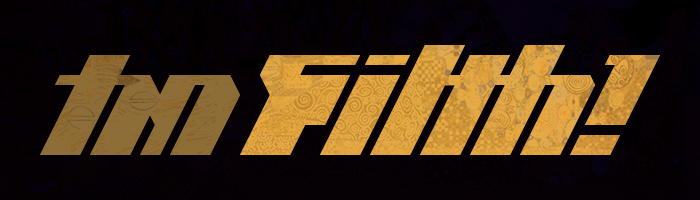
• Here's what not to do:
--Start an easy fontstruction to pretend you don't have time to do research assignment due last month
--Draw lowercase letters
--Change all letters to have slightly more personality
--Draw uppercase
--Change all lowercase to match the uppercase
--Draw numbers
--Change all uppercase to match numbers
--Change one letter so that it makes better auto-ligature
--Change all letters to have less personality
At this point, who knows how much time has been sunk into doing this "easy" fs and what it started out as. And unoriginal to boot. Forget it. Next!
I like this slanted!
Congratulations! FontStruct Staff have deemed your FontStruction worthy of special mention. “tm Filth!” is now a Top Pick.
Here's what to do:
-Admiring its personality.
-Rate 10
-Add as a favourite.
As always, you have come up with a pleasing and original design.